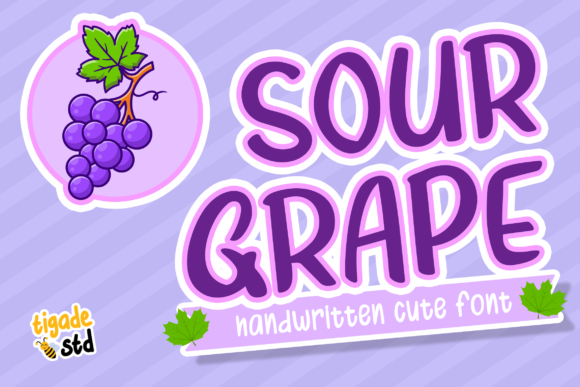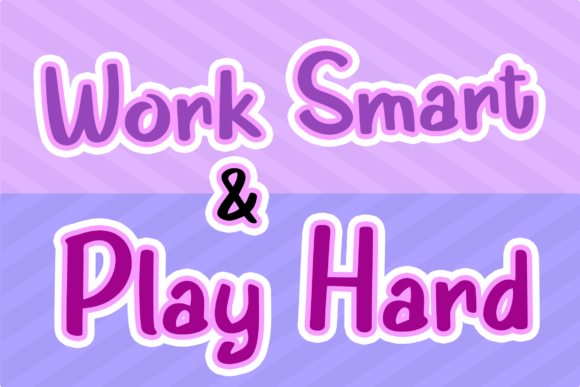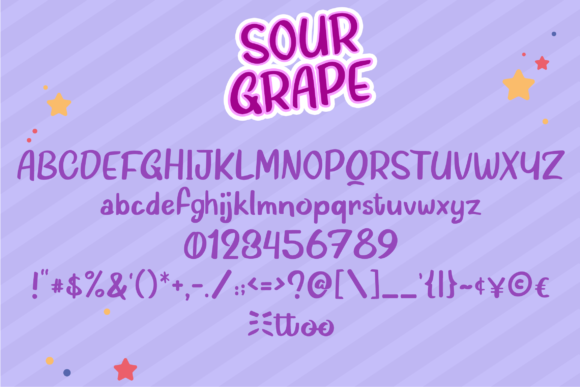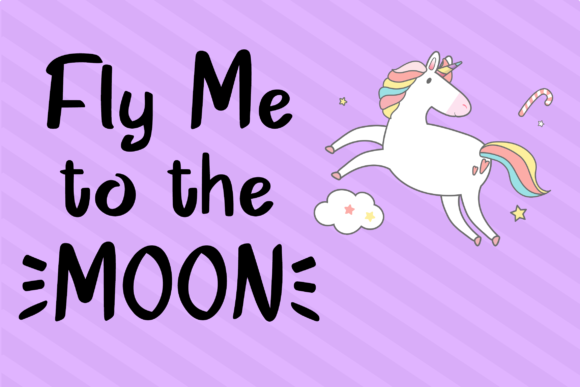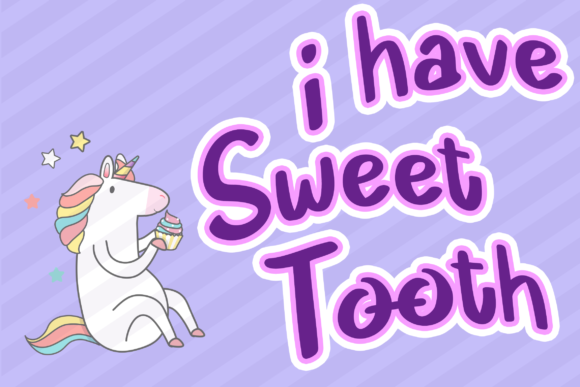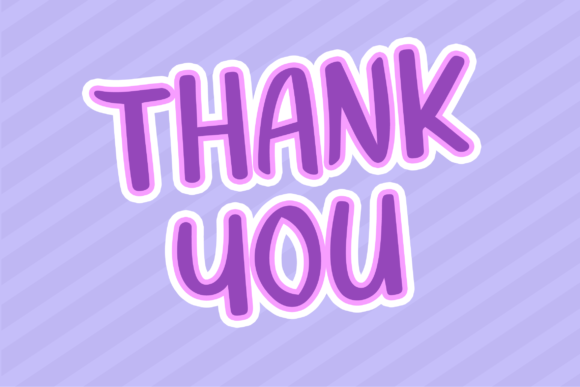
About Sourgrape Font
Sourgrape is a cool, relaxed and friendly handwritten font. No matter the topic, this font will be an incredibly asset to your fonts’ library, as it has the potential to elevate any creation.